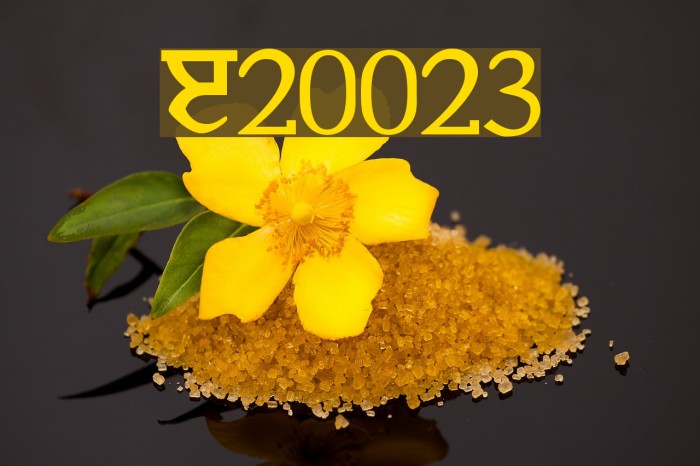
Janmeja2002june3 Font
This font features a distinctive style with bold, rounded characters that are well-suited for creating a strong visual impact. The characters are evenly spaced, providing a clean and organized appearance. The font includes a full set of numerals and a variety of punctuation marks, making it versatile for different types of projects. Its bold strokes and clear lines make it highly legible, even at smaller sizes. The design is modern yet retains a classic touch, making it suitable for both contemporary and traditional uses.
A bold, rounded font with clear lines and modern appeal.
- Proposed Projects: Ideal for headlines, posters, branding materials, and signage due to its bold and clear design.